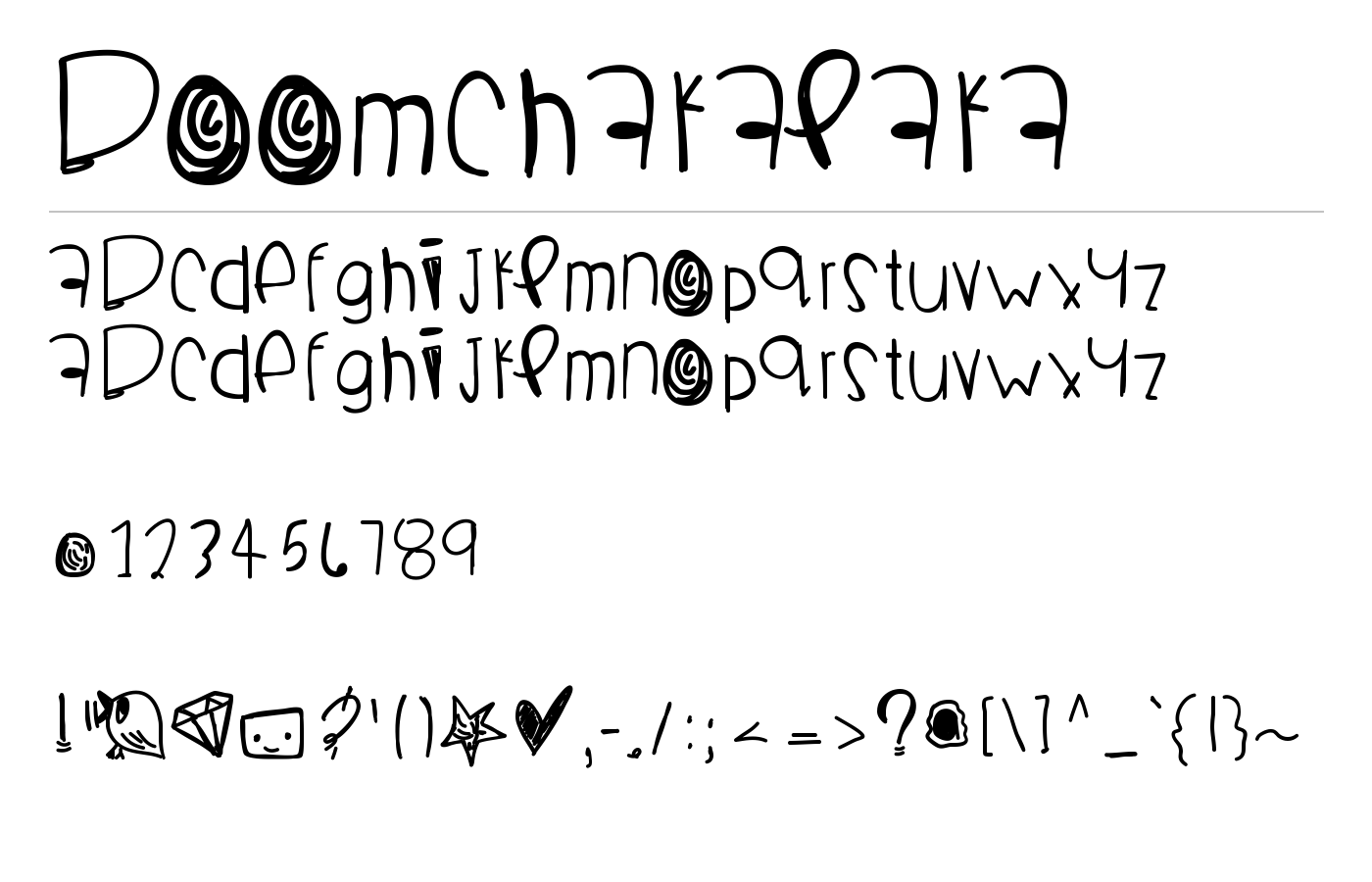
Boomchakalaka is a playful, hand-drawn sans serif font with a quirky and whimsical character, featuring irregular, uneven strokes and uniquely stylized letters that capture a casual, creative vibe. Its light weight and narrow width lend an airy feel, making it perfect for fun, informal designs like children’s books, party invitations, or quirky branding where a personable and energetic tone is desired. This font shines best in headlines or decorative text where its distinctive personality can stand out and bring a sense of youthful charm.
Boomchakalaka Font
About Boomchakalaka Font